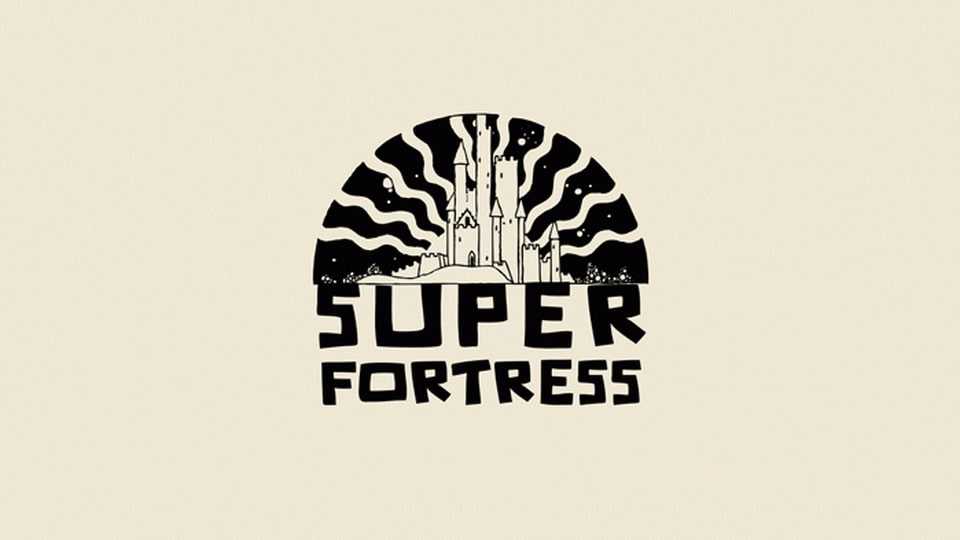
Download Super Fortrees font, a bold, quirky cartoon typeface that brings a playful and dynamic energy to your designs. It features chunky, geometric letterforms with fun, unconventional shapes and a hand-crafted feel.